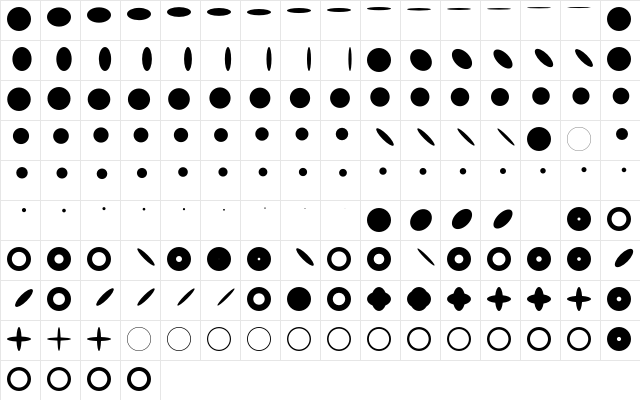
Freeform Five Free Font
Freeform Five
Style: Five
Design Context for Freeform
Freeform is a composed and adaptable typeface that performs quietly and consistently across a wide range of design contexts.